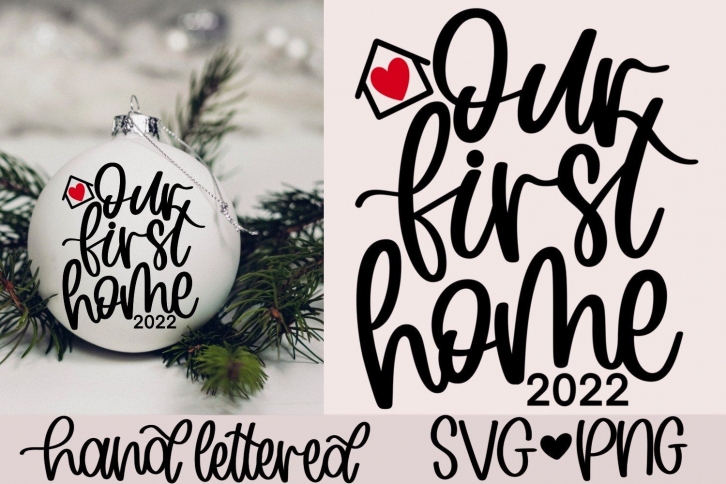
Celebrate a big milestone this Christmas with my ‘Our First Home 2022’ svg! This design is 100% hand lettered by me 🙂 That means it is unique and unlike anything else out there!